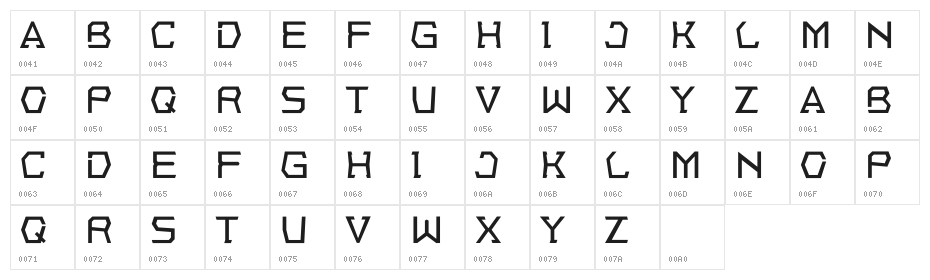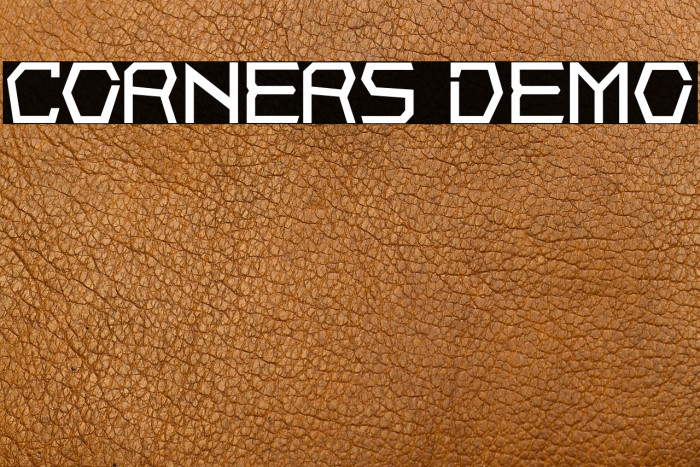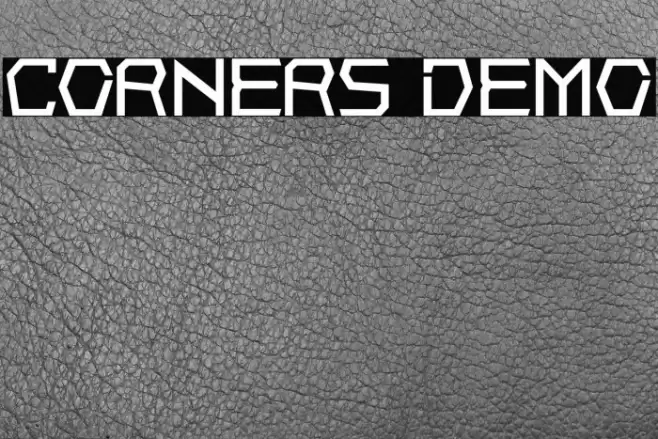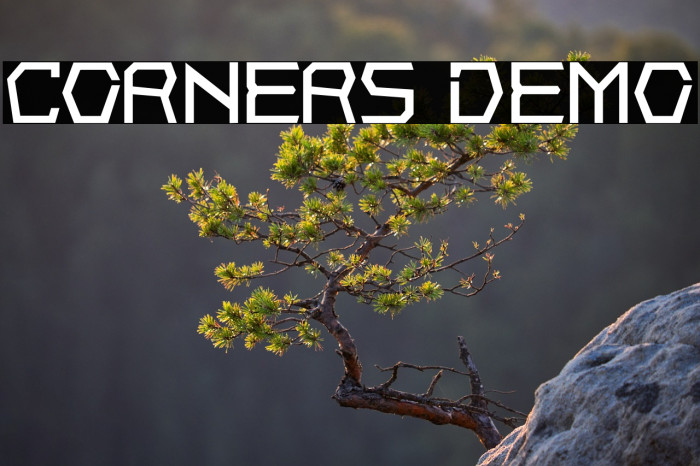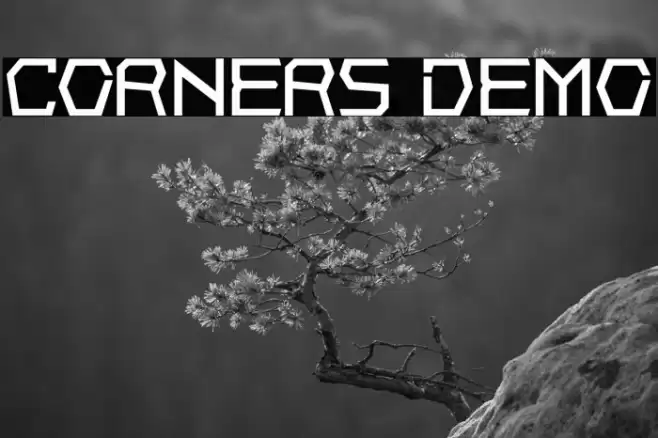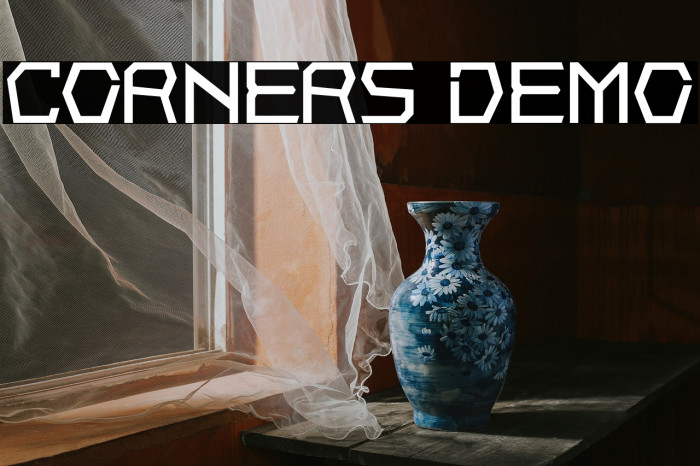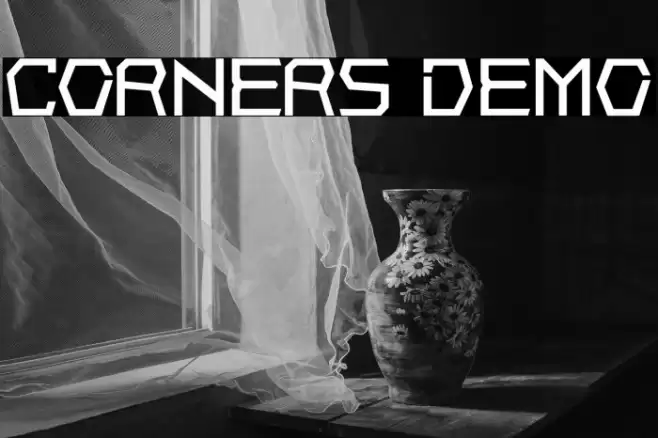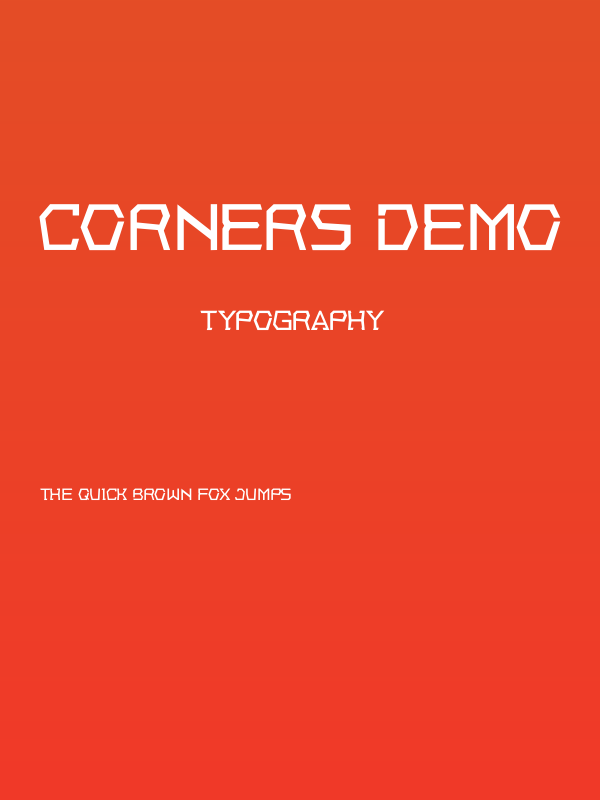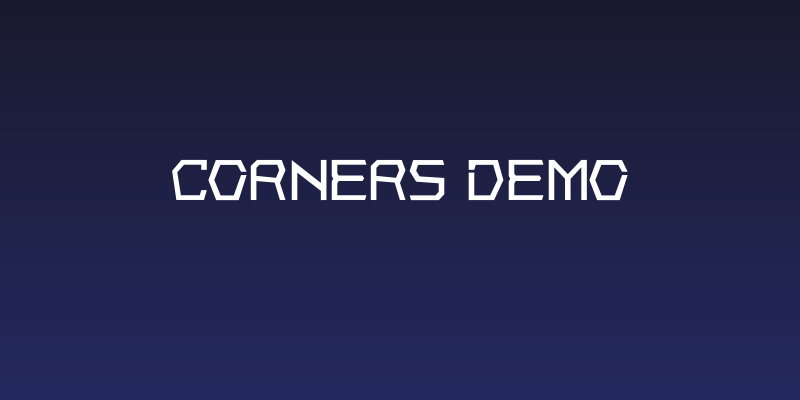
Corners Demo Font
Corners Demo Description
This font features a geometric and angular design, characterized by sharp corners and straight lines. The letters are bold and have a distinct, futuristic appearance, making them stand out prominently. The uniformity in the design gives it a cohesive look, while the angular elements add a modern and edgy feel. The font maintains a consistent weight throughout, providing a balanced and structured appearance. It is particularly suitable for projects that require a strong visual impact, such as branding or headlines. The unique style of the characters makes it ideal for creative and innovative designs.
| Proposed Projects | Ideal for branding, headlines, posters, and any project requiring a modern, impactful look. |